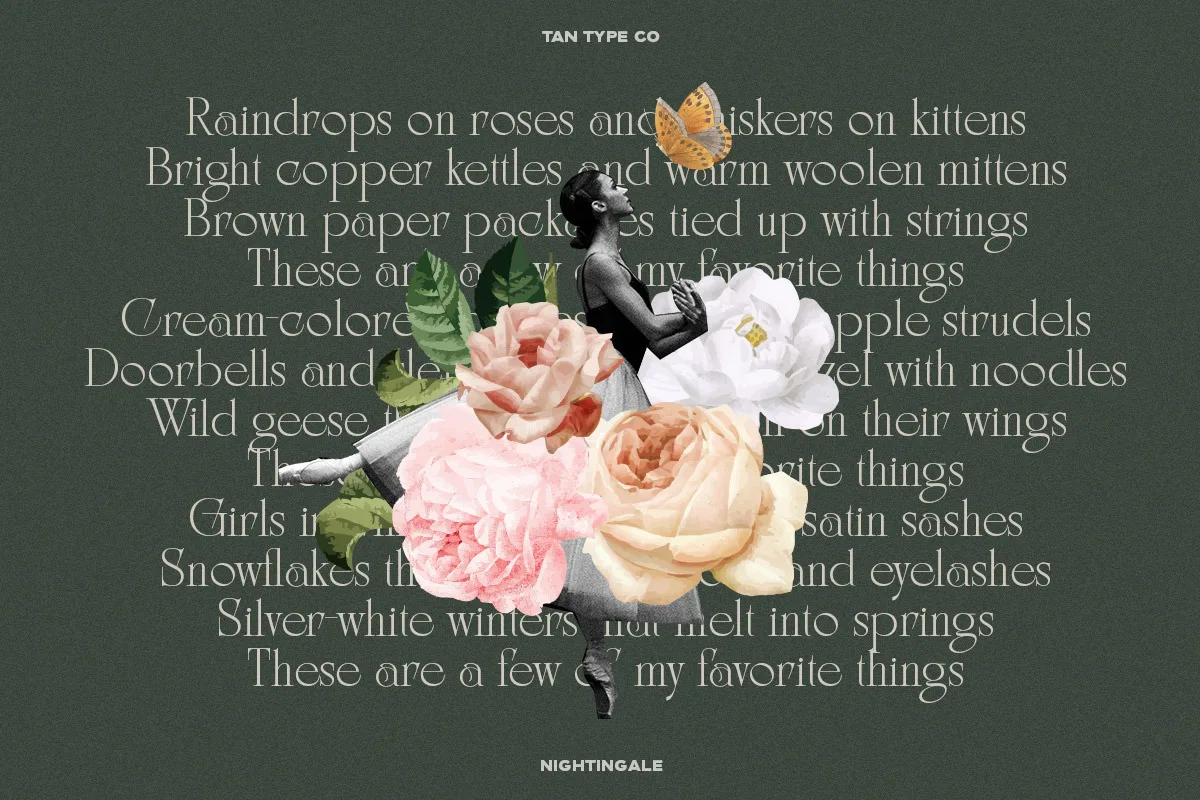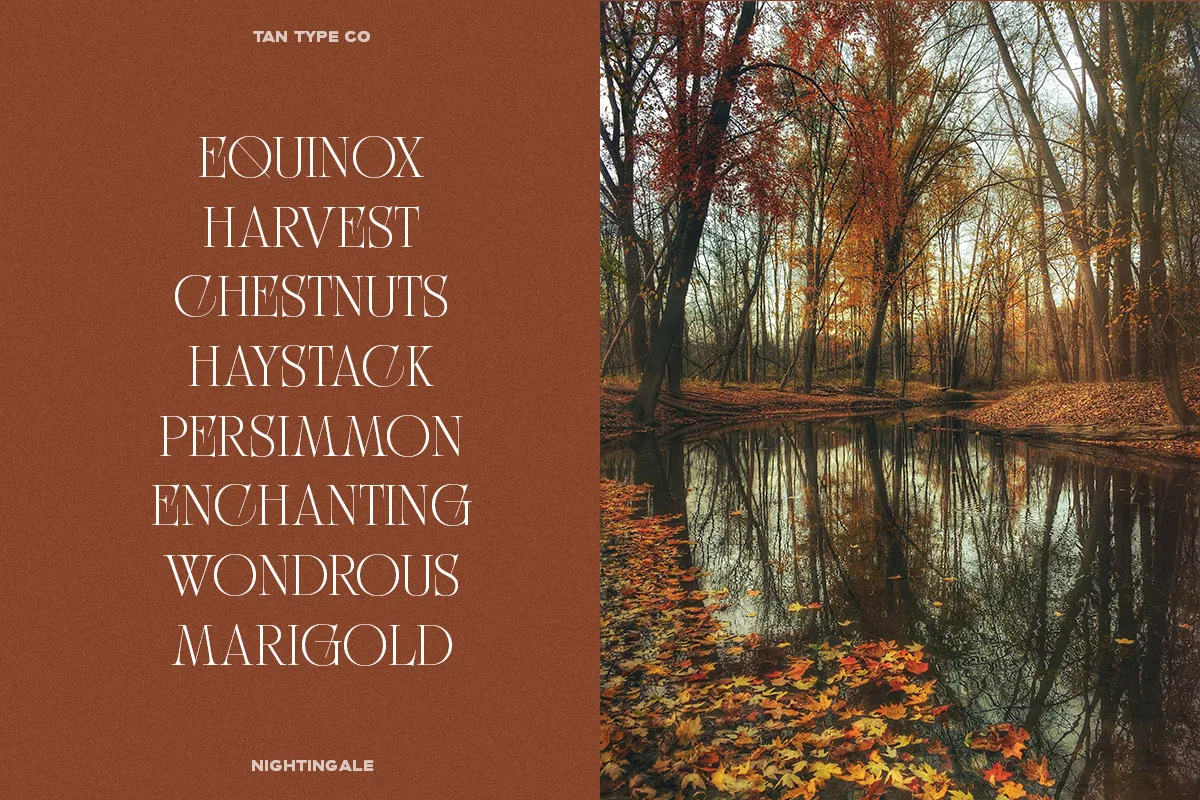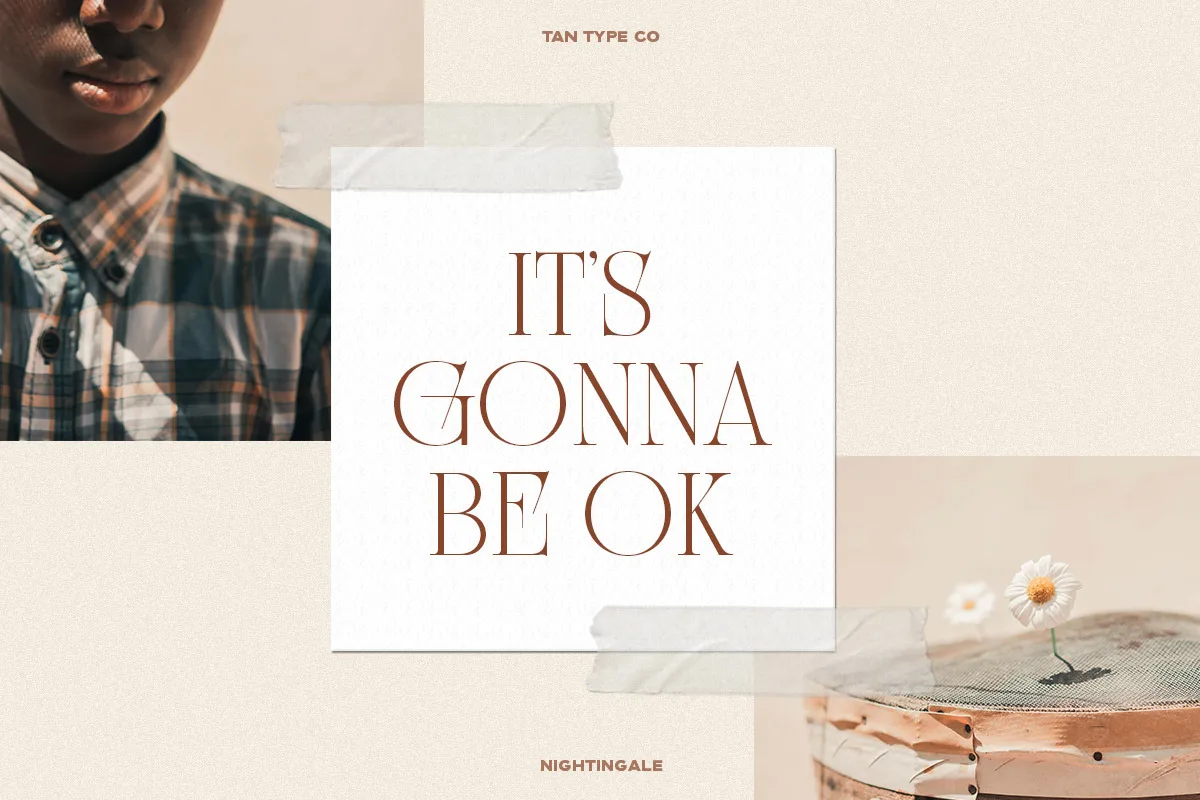
Tan Nightingale is an art deco inspired with dramatically elongated serif font. With its clean and modern feel, Nightingale will add elegance when used.
About Tan Nightingale Font